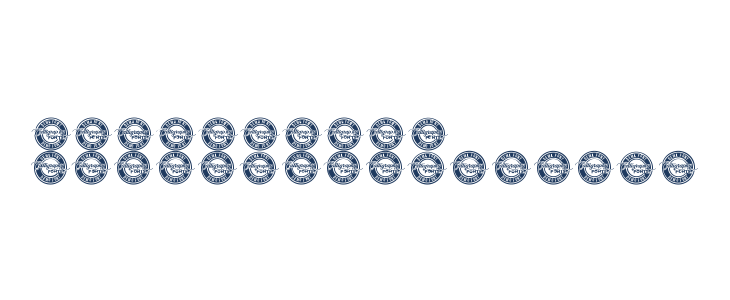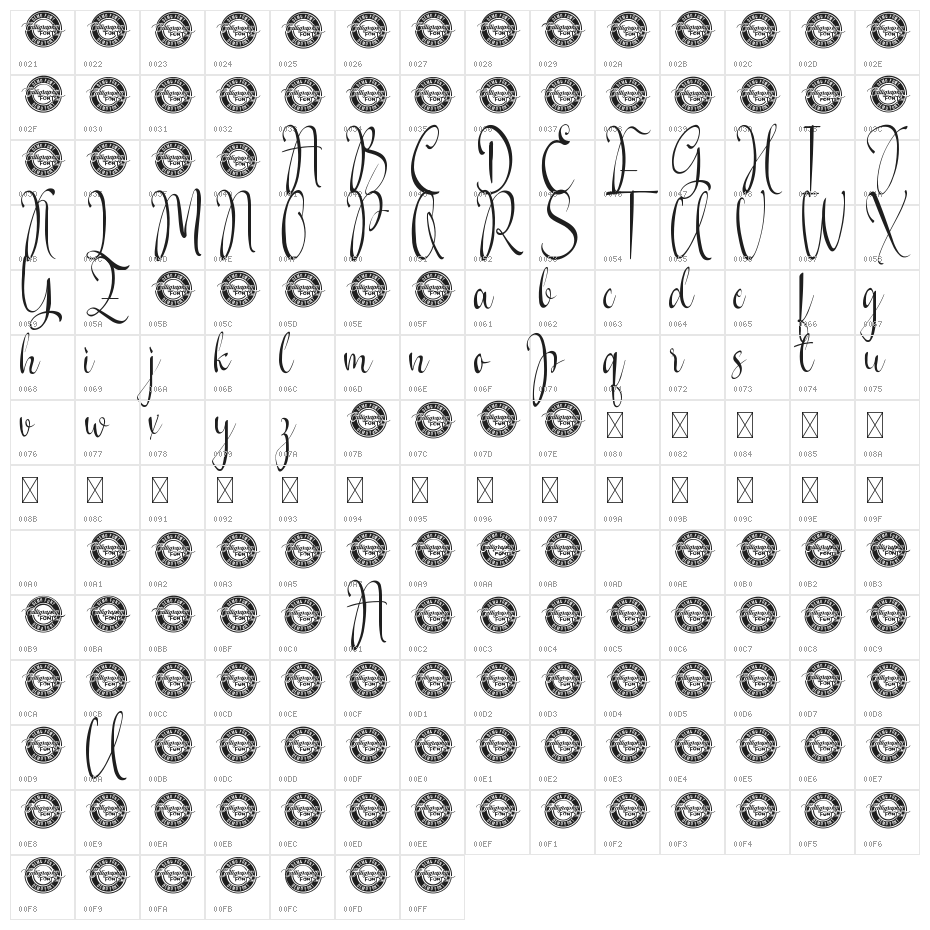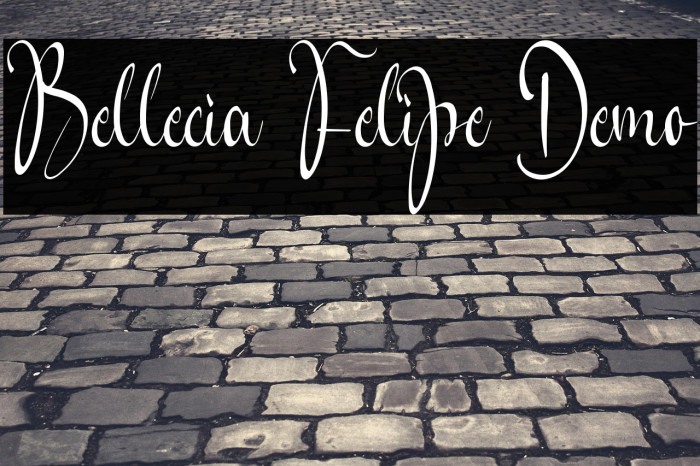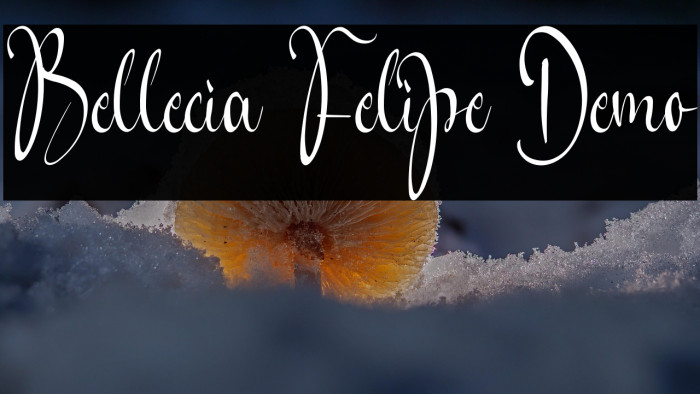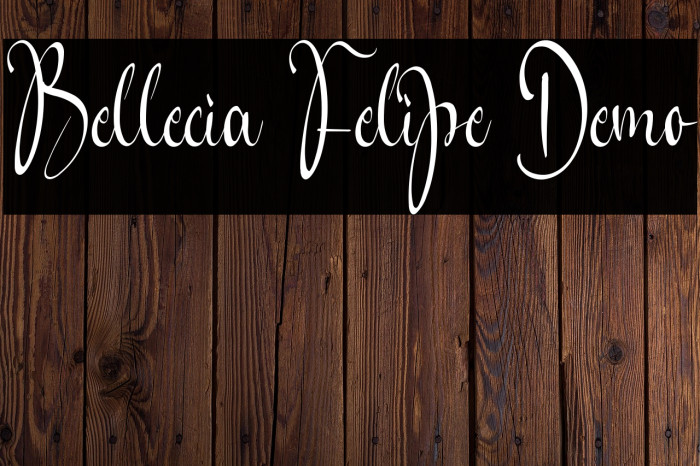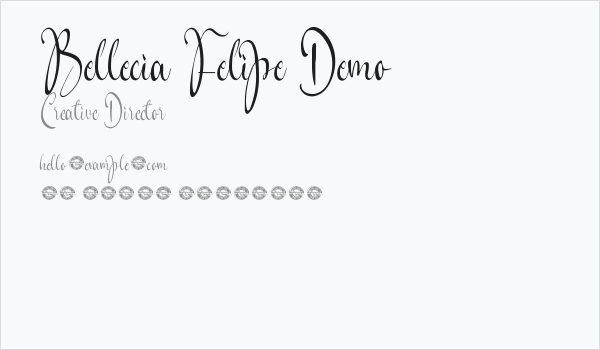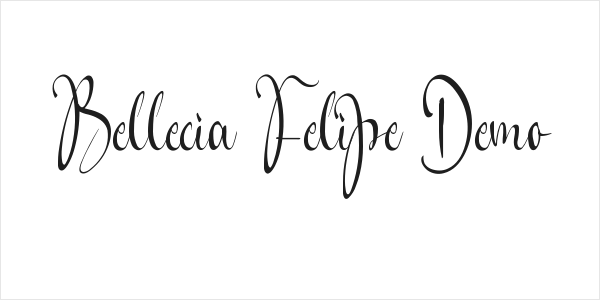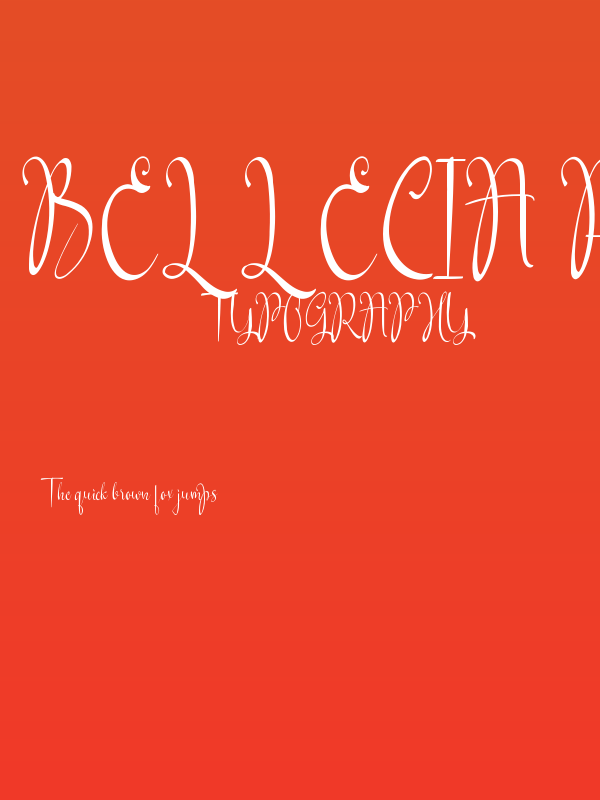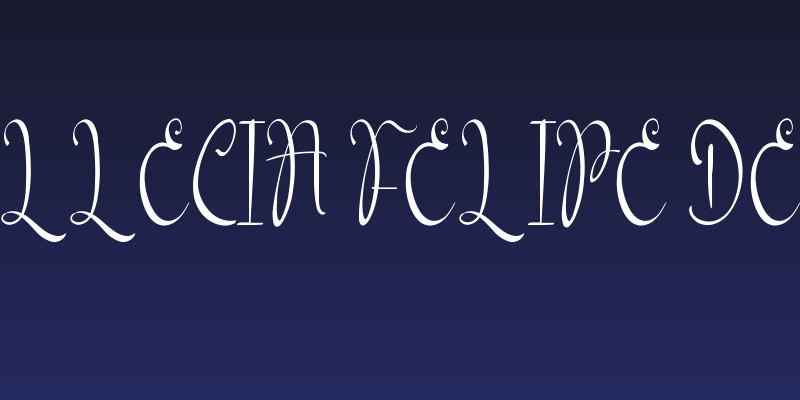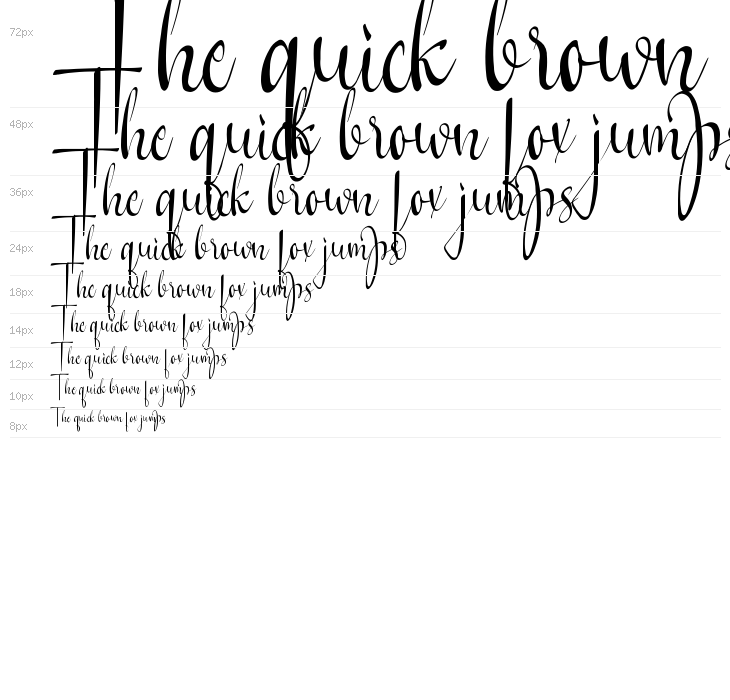
Bellecia Felipe Demo Font
Bellecia Felipe Demo Description
This font showcases an elegant and flowing script style, characterized by its intricate and graceful letterforms. The uppercase letters exhibit a sophisticated flair with elongated strokes and delicate curves, while the lowercase letters maintain a harmonious balance with their smooth, connected lines. The overall appearance is both artistic and refined, making it suitable for projects that require a touch of elegance and sophistication. The font's design is reminiscent of traditional calligraphy, yet it maintains a modern twist with its clean and polished execution. The special characters are seamlessly integrated, enhancing the font's versatility.